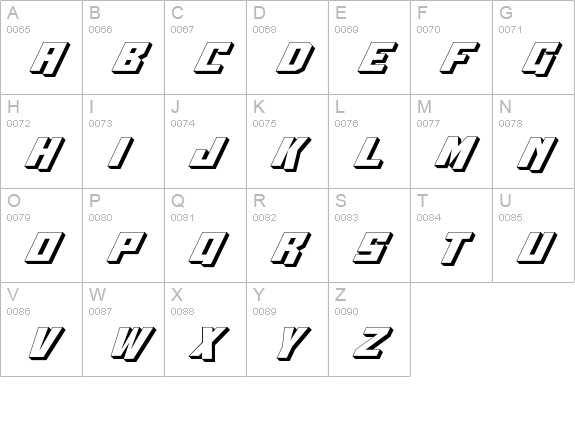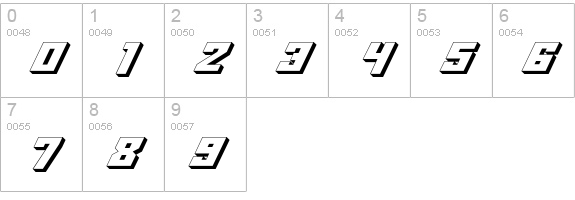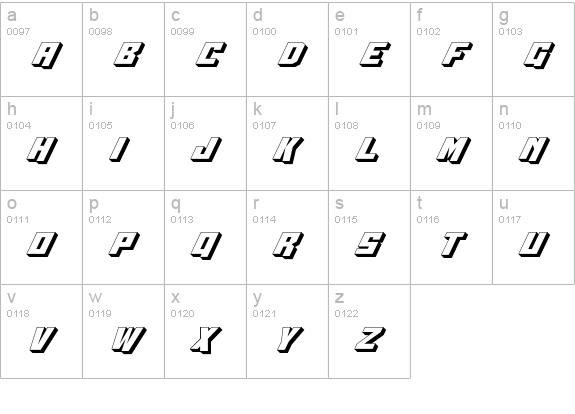
Introducing Whiskey Bravo Victor 3D font, a stunning display typeface that effortlessly combines a timeless charm with a modern twist. This font is a true masterpiece, designed to captivate and inspire with its unique three-dimensional effect. Whiskey Bravo Victor 3D font exudes an air of sophistication and elegance, making it perfect for a wide range of design projects. Whether you're designing a logo, creating eye-catching headlines, or crafting a memorable branding campaign, this font is bound to leave a lasting impression. What sets Whiskey Bravo Victor 3D font apart is not only its impeccable design but also its versatility. With a wide range of glyphs and characters, this font offers endless possibilities for customization and personalization. It allows you to experiment with different styles, sizes, and colors, ensuring that your designs stand out from the crowd. And the best part? Whiskey Bravo Victor 3D font is available for free! Yes, you read that right. This exceptional font can be freely downloaded at FontsMarket.com, providing you with an incredible opportunity to enhance your creative projects without breaking the bank. Don't miss out on the chance to add Whiskey Bravo Victor 3D font to your font library. Download it today and unleash your creativity like never before. Whether you're a professional designer or an aspiring creative, this font is sure to become your go-to choice for all your typographic needs.